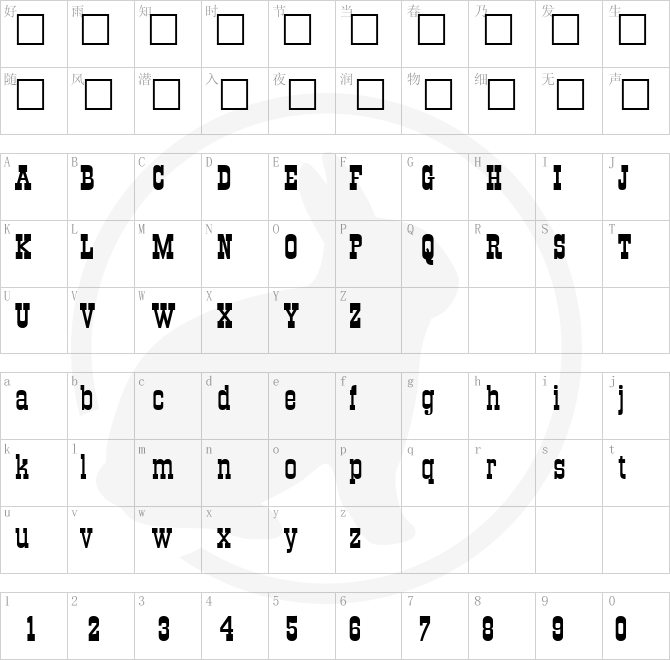
- Font Name:QTOKCorral-Ext
- Subfamily:QualiType TrueType font QTOKCorral-Ext Regular
- Full Name:QTOKCorral-Ext Regular
- PostScript:QTOKCorral-Ext
QTOKCorral-Ext-Regular.ttf is a very beautiful artistic font, QTOKCorral-Ext-Regular.ttf is widely used in the design and printing of various books and pictures,QTOKCorral-Ext-Regular.ttf has a strong visual impact,QTOKCorral-Ext-Regular.ttf is a commonly used font in newspapers, magazines and books, and is used in posters, e-commerce Poster design, store design, logo design, font design and other fields.QTOKCorral-Ext-Regular.